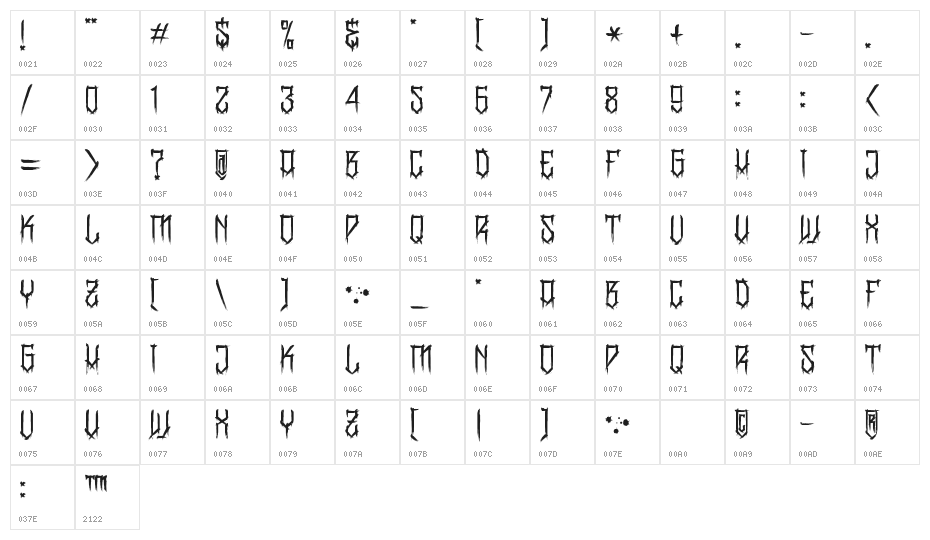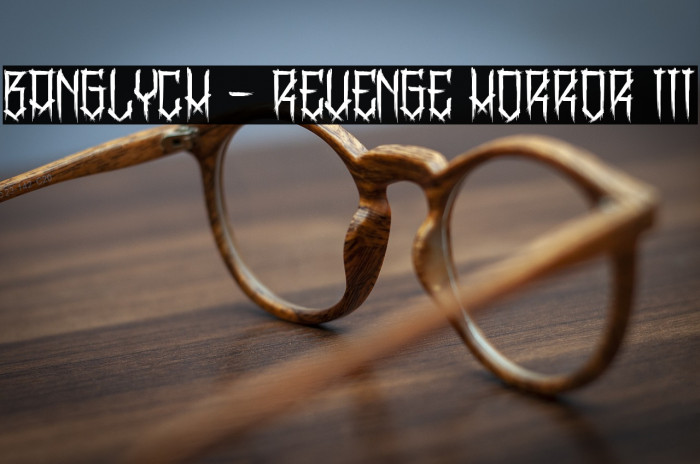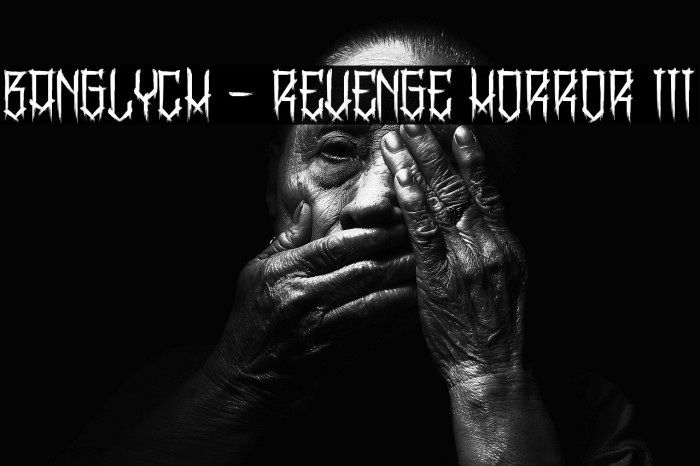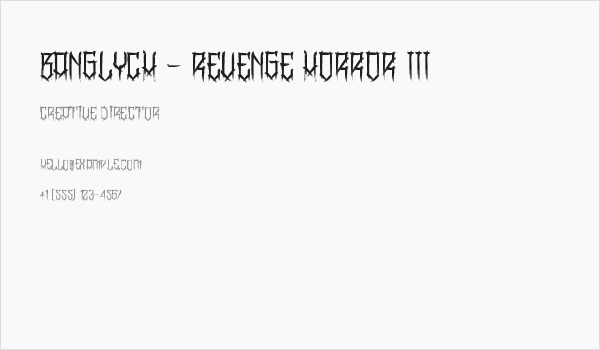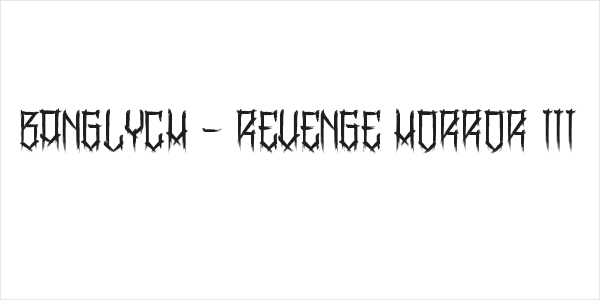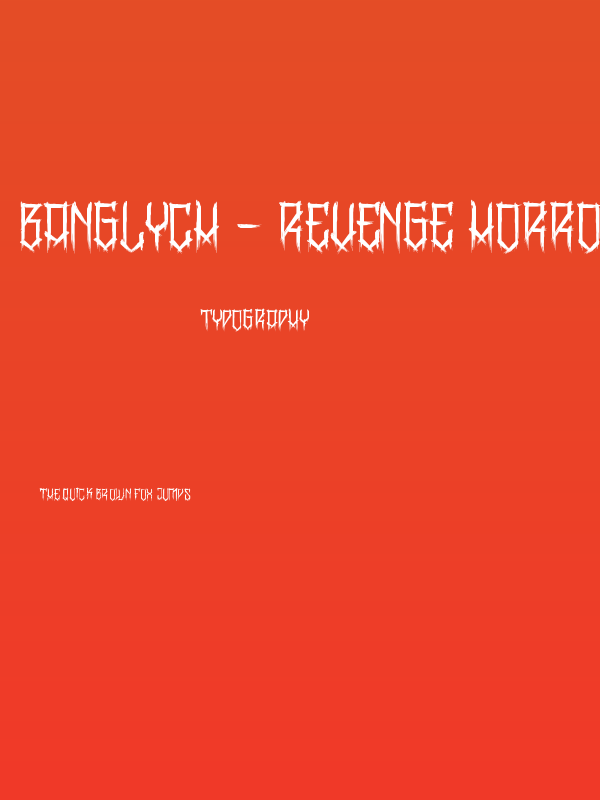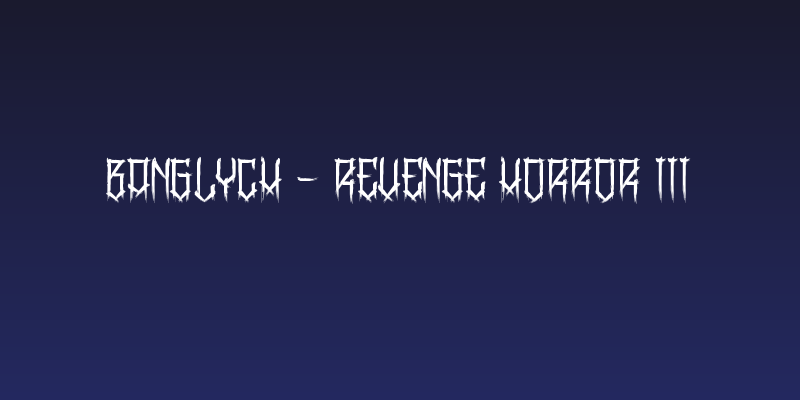
BangLYCH - Revenge Horror III Font
BangLYCH - Revenge Horror III Description
This font features a striking, jagged design that evokes a sense of horror and intensity. Each character is crafted with sharp, pointed edges and irregular strokes, creating a chaotic and unsettling appearance. The uppercase and lowercase letters maintain a consistent style, with elongated forms and dramatic angles. Numbers and special characters follow the same aesthetic, enhancing the font's cohesive look. The overall design is reminiscent of horror movie titles or Halloween-themed graphics, making it perfect for projects that require a bold and eerie touch.
| Overall Style | Horror, Intense, Chaotic |
| Use Case | Headlines, Posters, Themed Events |
| Proposed Projects | Ideal for horror movie posters, Halloween event flyers, and spooky-themed graphic designs. |